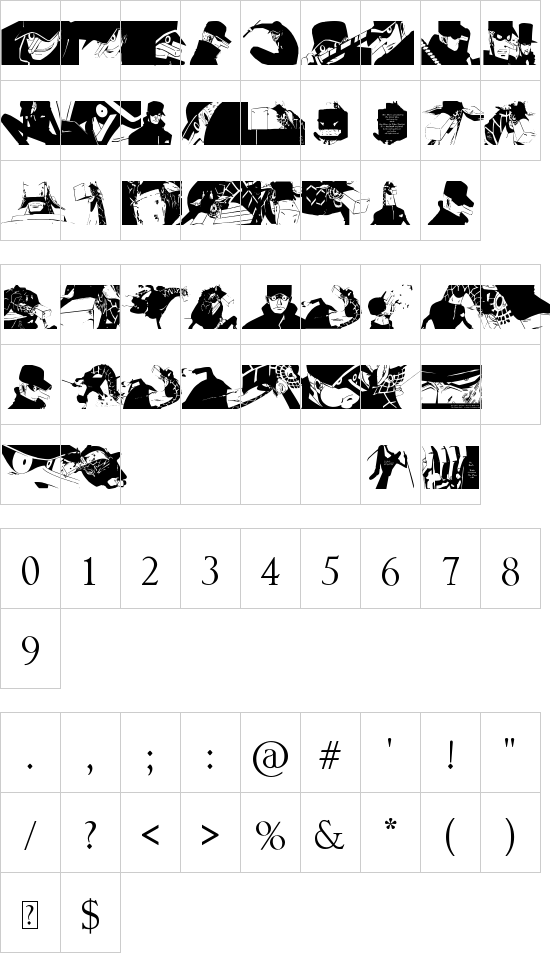
Kaku Dingbats One Piece Art One Piece Area is a cartoon dingbat set packed with anime-inspired character art and themed illustrations. Each glyph is a finished graphic drawn for fans, ranging across familiar motifs, so every key press drops a ready-made piece of cartoon artwork into your layout.
It works for anime fan art, sticker sheets, themed party graphics, and playful poster accents where anime-style illustration fits. Kaku Dingbats One Piece Art One Piece Area is free to download as a TrueType file, and the preview lets you type different letters to see which artwork lands on each key.